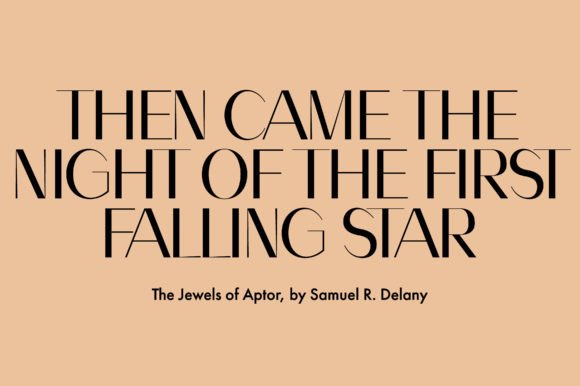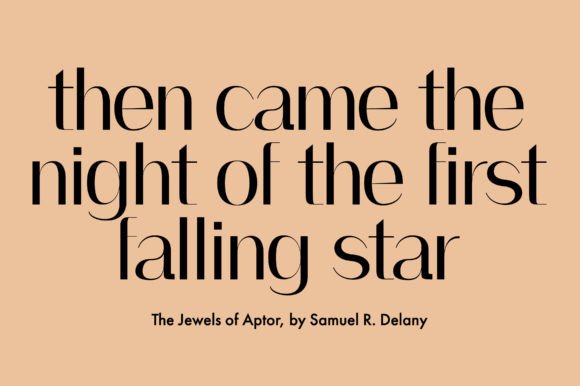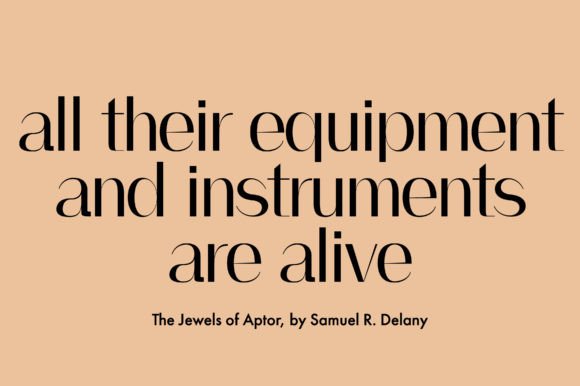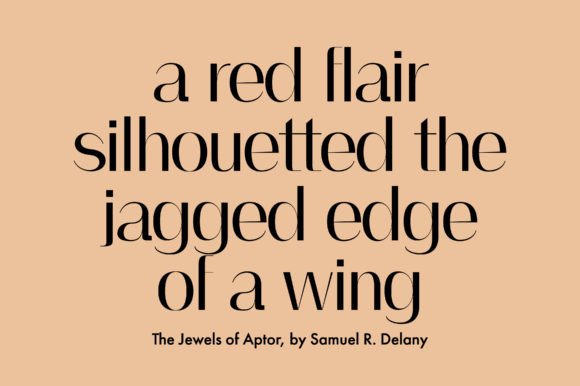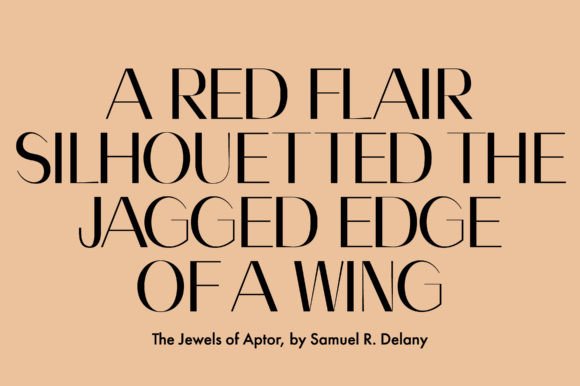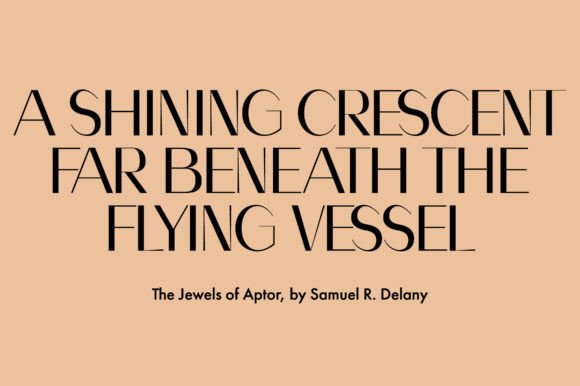
Introduction to Shireen Font
Shireen is a sleek and sophisticated sans-serif typeface that will elevate any design project to the next level.
Its clean lines and minimalistic form make it an ideal choice for a wide range of design applications, from sleek logos and branding to stunning print materials .
Key Features of Shireen Font
Why Choose Shireen Font?
Shireen Font offers exceptional quality and versatility, making it a valuable addition to your design toolkit. Whether you’re creating for personal projects or commercial use, Shireen Font delivers professional results.